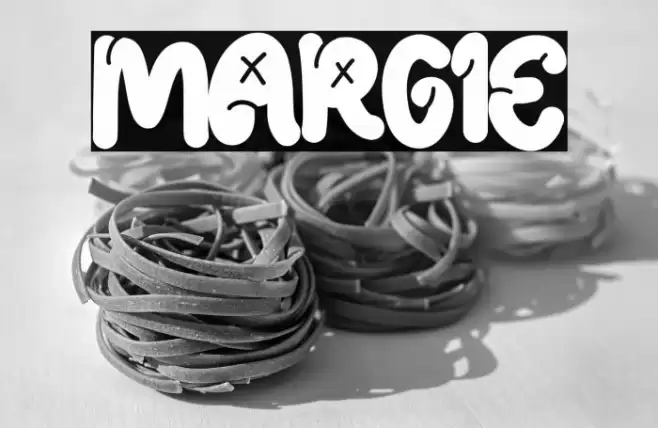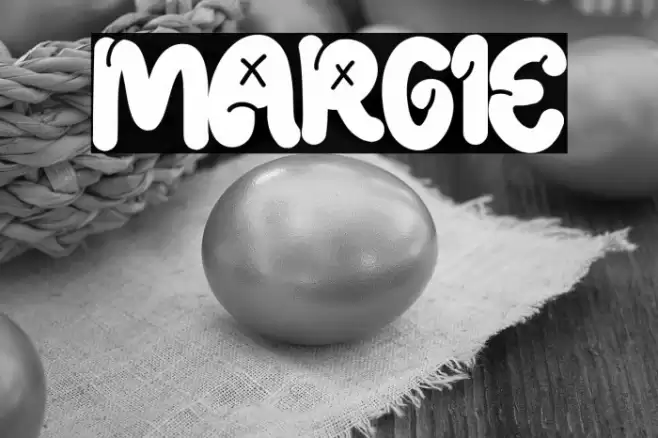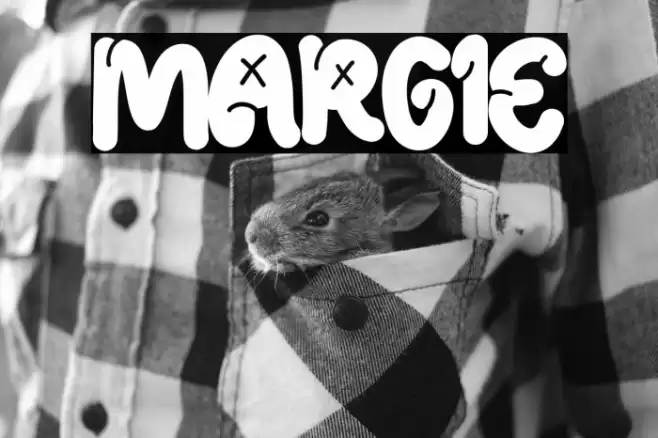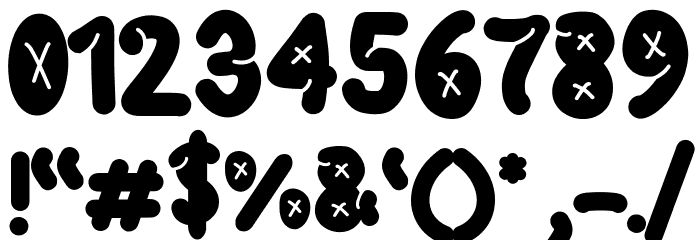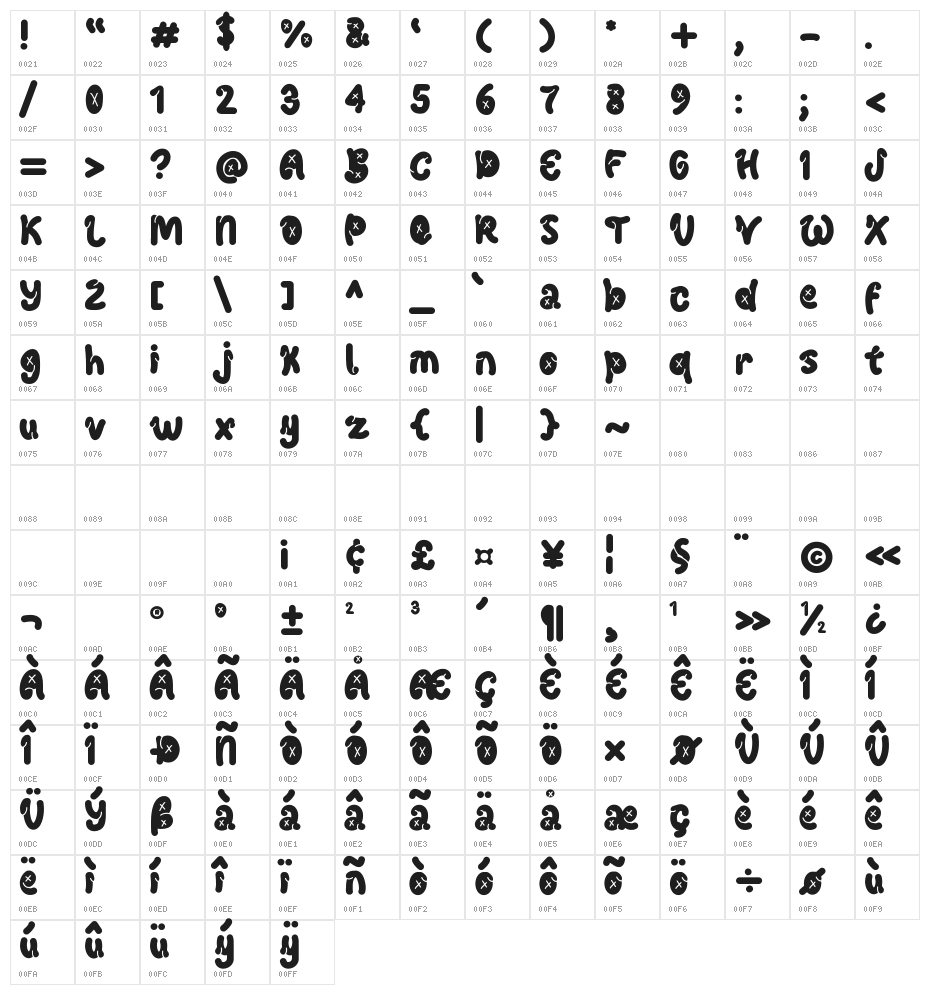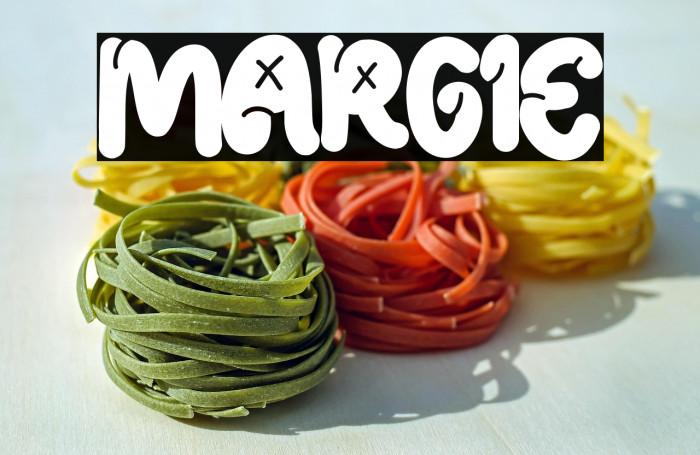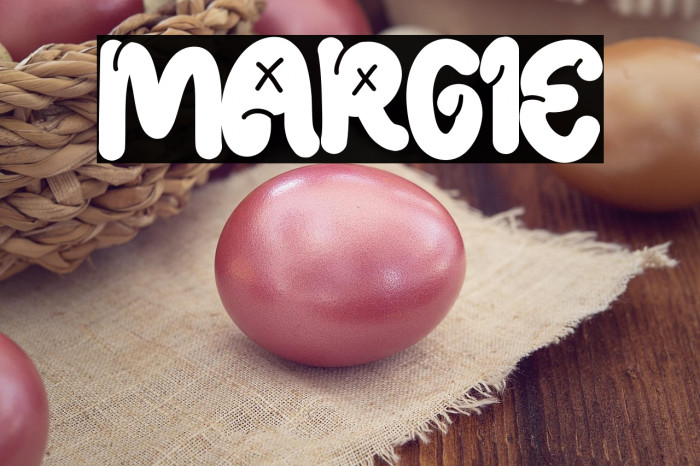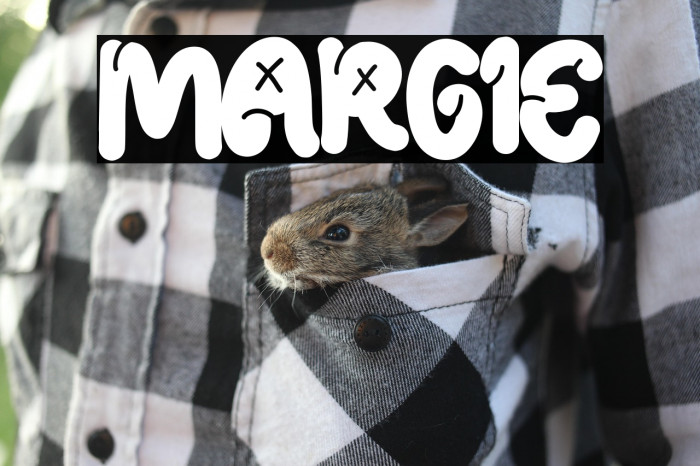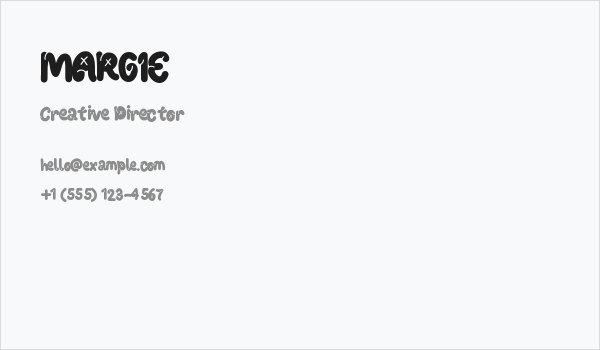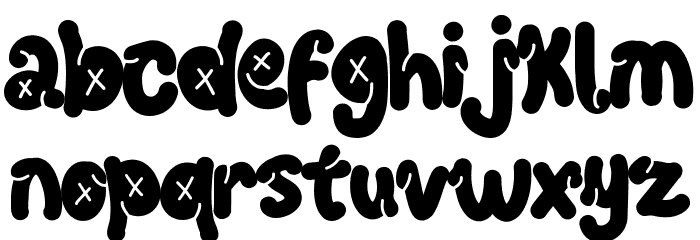
MARGIE Font
MARGIE Description
This playful and bold font features a unique design where each character is adorned with a small 'X' mark, adding a whimsical touch. The letters are rounded and thick, creating a friendly and approachable appearance. The font maintains a consistent weight throughout, with smooth curves and a slightly irregular baseline that enhances its casual style. The numbers and special characters follow the same design principles, ensuring a cohesive look across all elements. This font is ideal for projects that require a fun and informal vibe, making it perfect for children's books, playful branding, or creative posters.
A playful, bold font with rounded characters and whimsical 'X' details from Uncategorized fonts.
- Proposed Projects: Ideal for children's books, playful branding, creative posters, and informal designs.
- Overall Style: Playful, Casual